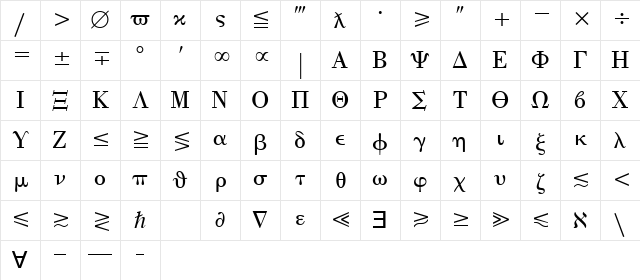
UniversalMath1 BT Regular
Complete UniversalMath1 BT Regular glyph index. Displaying only characters natively supported by UniversalMath1 BT Regular font.
Design Context for UniversalMath1 BT
UniversalMath1 BT is a composed and adaptable typeface that performs quietly and consistently across a wide range of design contexts.